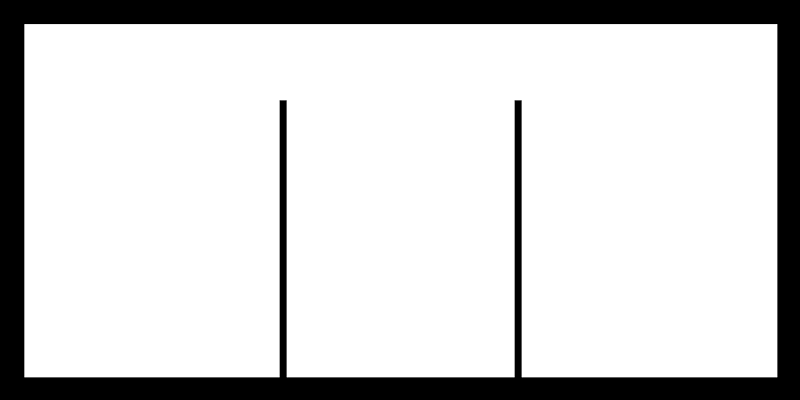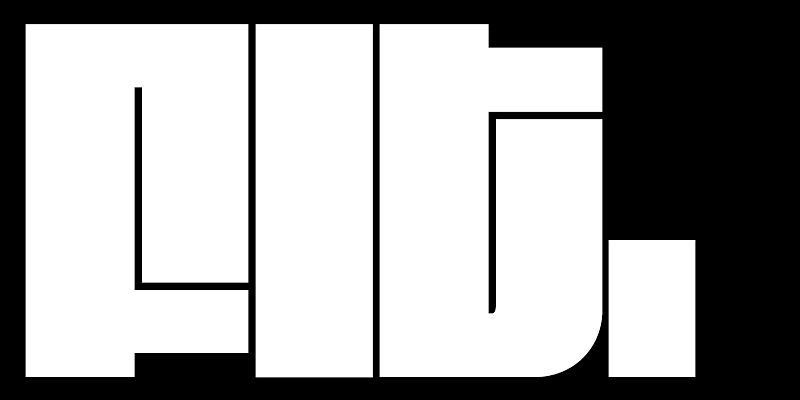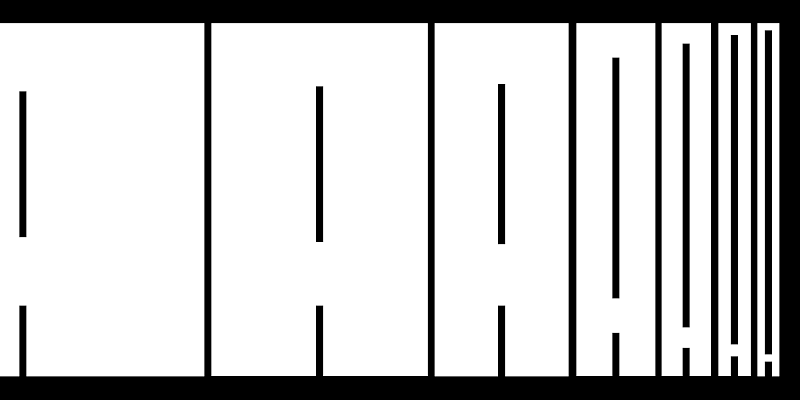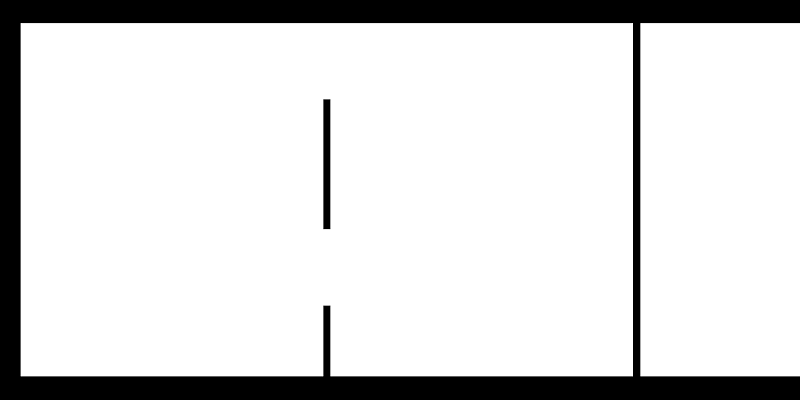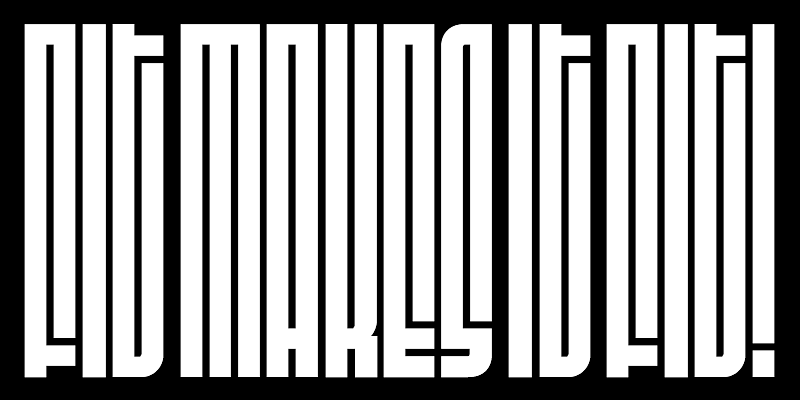
Fit is a hyper-stylized series of caps designed with one thing in mind: filling up space with maximum impact. With an expansive range of widths, Fit will take just about any text and fit it into just about any space. From the impossibly narrow Skyline to the gargantuan Ultra Extended, you will find a family rich in panache and expressive potential. DJR, 2017.
David Jonathan Ross draws letters of all shapes and sizes for custom and retail typeface designs from his studio in the woods of Western Massachusetts. A native of Los Angeles, He began drawing typefaces at Hampshire College and joined The Font Bureau in 2007 where he honed his bézier-wrangling skills. Now he publishes his typeface designs at his own foundry, DJR, as well as working on projects with Type Network and developing unusual display faces for his Font of the Month Club.